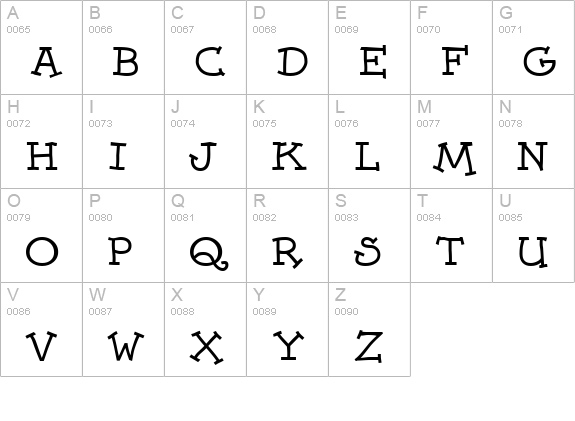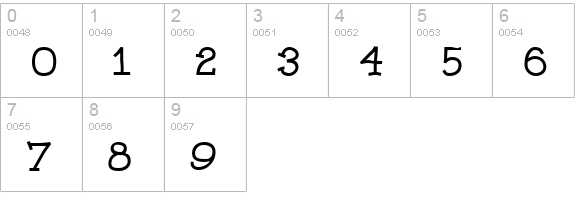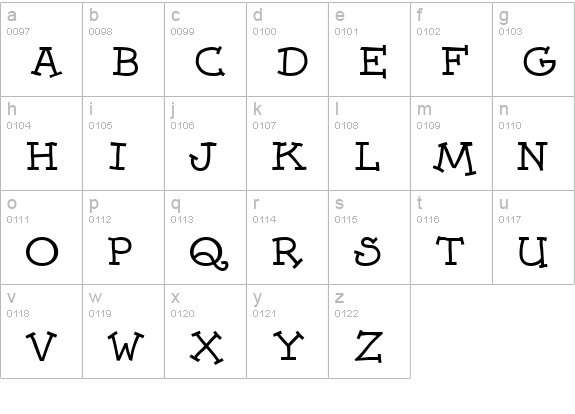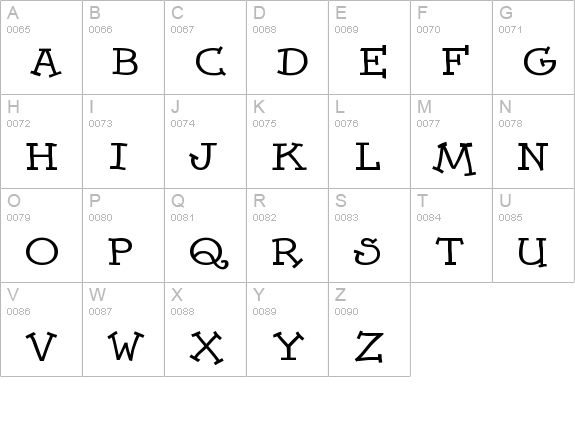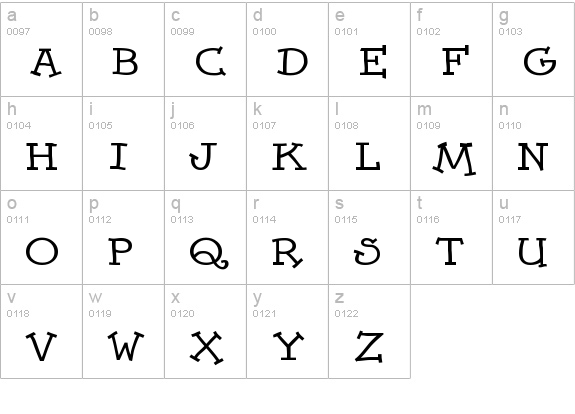
Introducing the Dummies font, the perfect typeface for those who want to add a touch of simplicity and accessibility to their designs. Designed with ease of use in mind, this font is perfect for beginners and professionals alike. With its clean lines and friendly appearance, Dummies font is sure to make any text easy to read and understand. Whether you're creating a website, designing a logo, or crafting a poster, this font is a versatile choice that will enhance your project with its approachable style. And the best part? Dummies font is freely available to download at FontsMarket.com. That means you can enjoy the benefits of this incredible font without spending a penny. It's never been easier to add a professional touch to your designs without breaking the bank. So why wait? Download the Dummies font today and take your designs to the next level. With its free availability and user-friendly design, this font is a must-have for anyone looking to create visually appealing and accessible content. Don't miss out on this opportunity to enhance your designs effortlessly. Get Dummies font now and see the difference it makes in your projects.